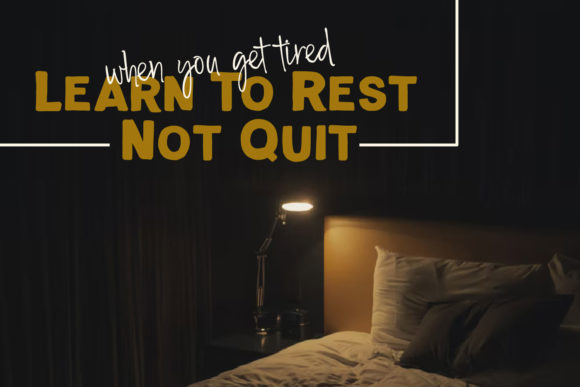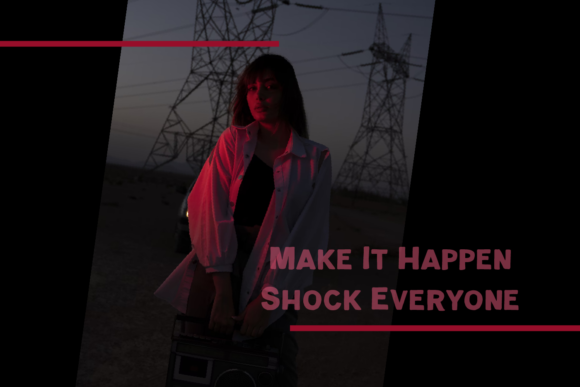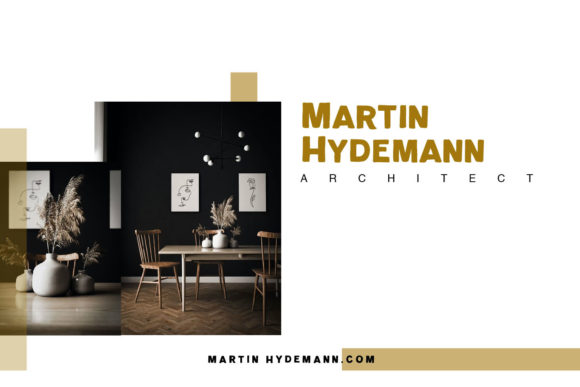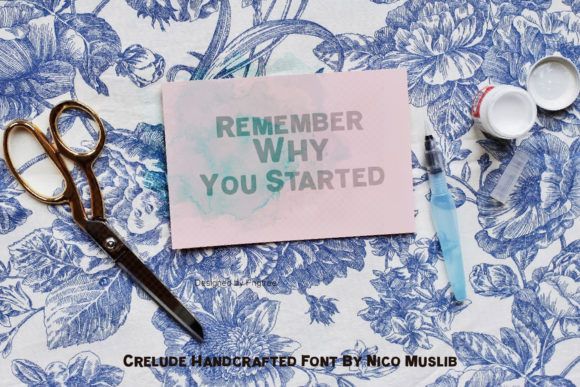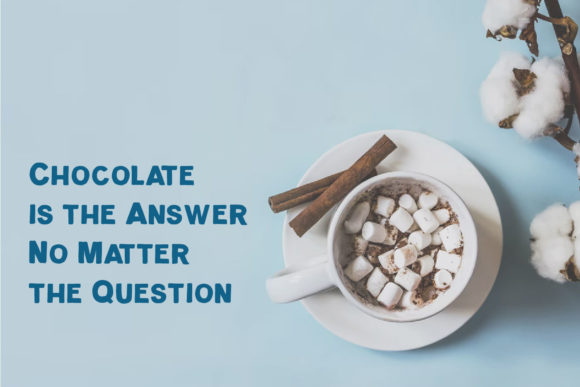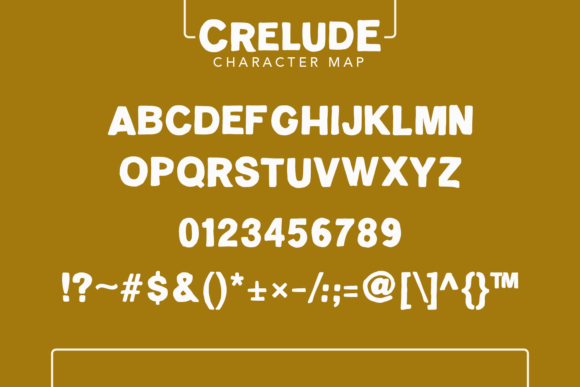
Crelude Font: A Cool, Rough Textured, and Vintage Styled Display Font
Are you tired of using the same old fonts in your designs? Look no further than the Crelude Font, a unique and stylish display font that’s perfect for adding a touch of personality to your projects. With its cool, rough textured, and vintage styled aesthetic, Crelude is sure to make your designs stand out from the crowd.
What is Crelude Font?
Crelude Font is a display font that’s designed to add a touch of rugged charm to your designs. Its rough textured and vintage styled aesthetic gives it a unique and eye-catching look that’s perfect for headlines, titles, and other display text. Whether you’re working on a logo, brochure, or website, Crelude is a great choice for adding a bit of personality to your project.
Key Features of Crelude Font
So what makes Crelude Font so special? Here are just a few of its key features:
• Cool and Rough Textured Aesthetic: Crelude’s rough textured aesthetic gives it a unique and eye-catching look that’s perfect for adding a touch of rugged charm to your designs.
• Vintage Styled: With its vintage styled aesthetic, Crelude is perfect for designers who want to add a touch of nostalgia to their projects.
• Endless Variations: Crelude has a wide range of variations, making it easy to experiment and find the perfect look for your project.
• Easy to Read: Despite its rough textured aesthetic, Crelude is still easy to read, making it perfect for use in headlines, titles, and other display text.
How to Use Crelude Font in Your Designs
So how can you use Crelude Font in your designs? Here are a few ideas to get you started:
• Headlines and Titles: Crelude is perfect for use in headlines and titles, where its bold and eye-catching aesthetic can really make an impact.
• Logos and Branding: With its unique and stylish aesthetic, Crelude is a great choice for logos and branding projects.
• Posters and Flyers: Crelude’s bold and eye-catching aesthetic makes it perfect for use in posters and flyers.
• Web Design: Crelude can also be used in web design, where its bold and eye-catching aesthetic can help to draw attention to key elements on the page.
Tips for Getting the Most Out of Crelude Font
Here are a few tips for getting the most out of Crelude Font:
• Experiment with Different Variations: With its wide range of variations, Crelude is a font that’s perfect for experimentation. Try out different variations to find the one that works best for your project.
• Use it with Other Fonts: Crelude can be paired with other fonts to create a unique and eye-catching look. Try pairing it with a clean and simple font to create contrast.
• Play with Color: Crelude’s bold and eye-catching aesthetic makes it perfect for use with bright and bold colors. Try experimenting with different colors to find the one that works best for your project.
Author Nico Muslib
In conclusion, Crelude Font is a unique and stylish display font that’s perfect for adding a touch of personality to your designs. With its cool, rough textured, and vintage styled aesthetic, Crelude is sure to make your designs stand out from the crowd. Whether you’re working on a logo, brochure, or website, Crelude is a great choice for adding a bit of rugged charm to your project. So why not give it a try and see what you can create?